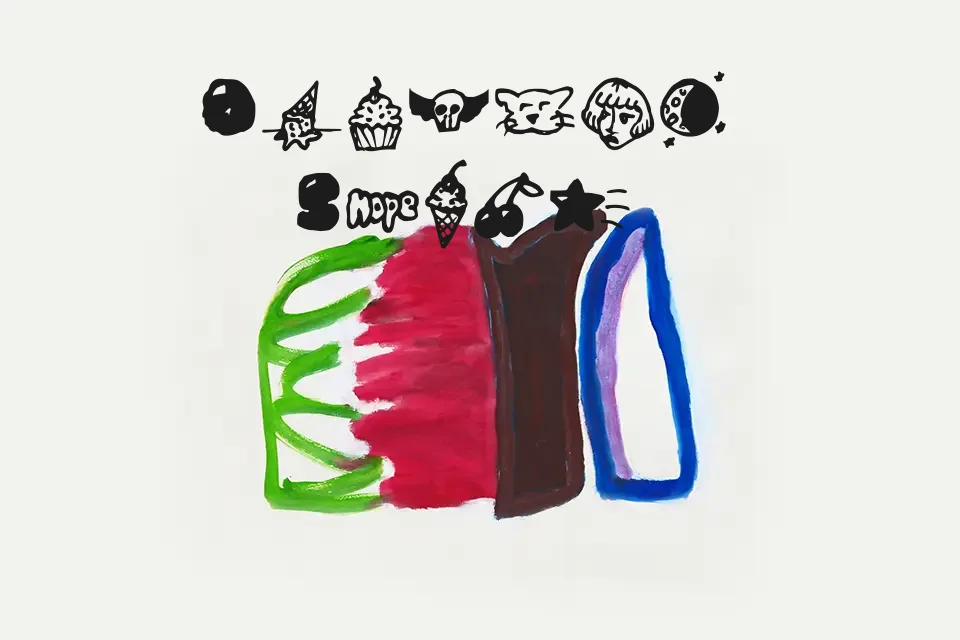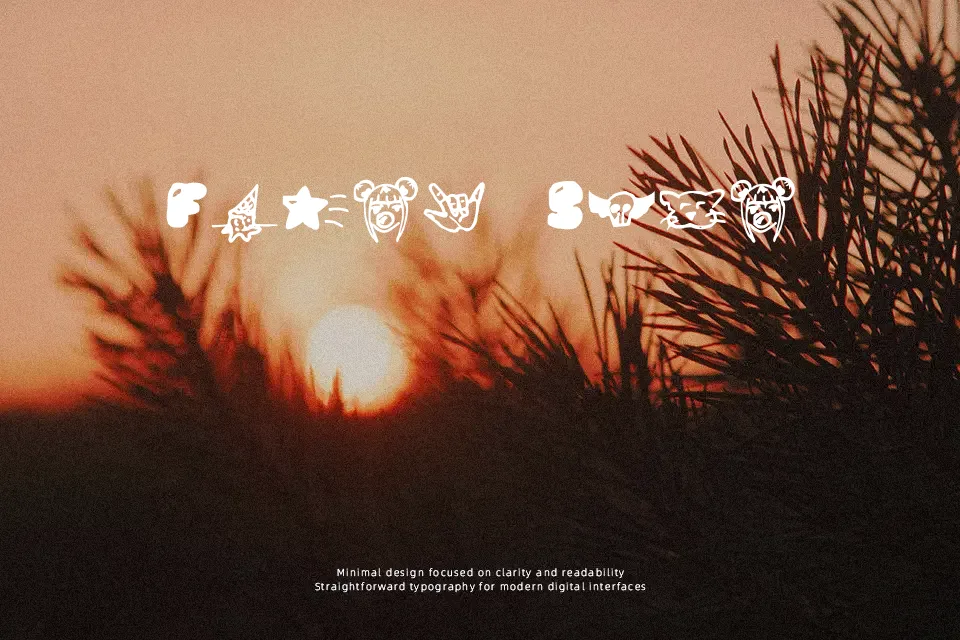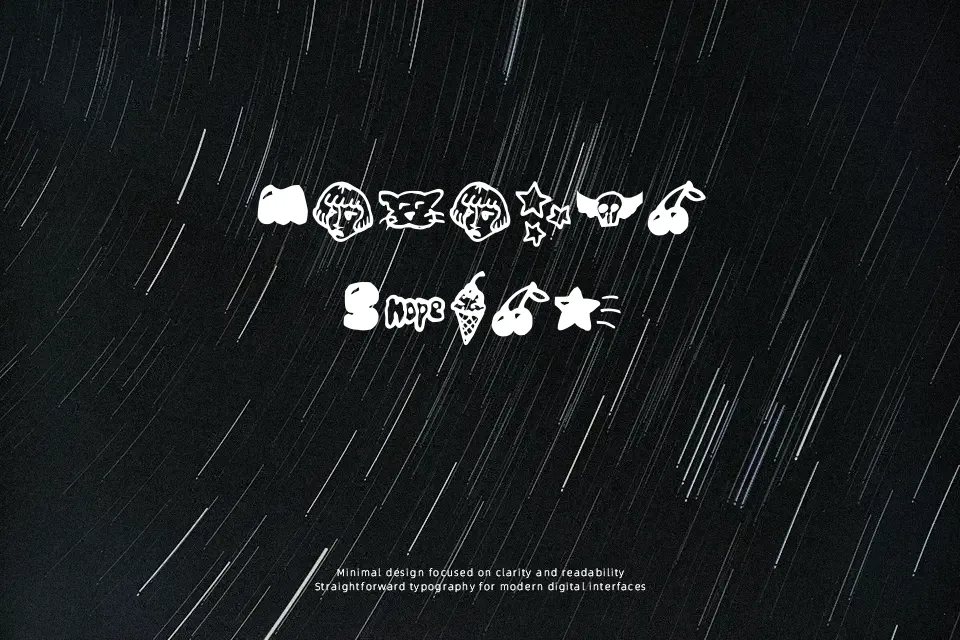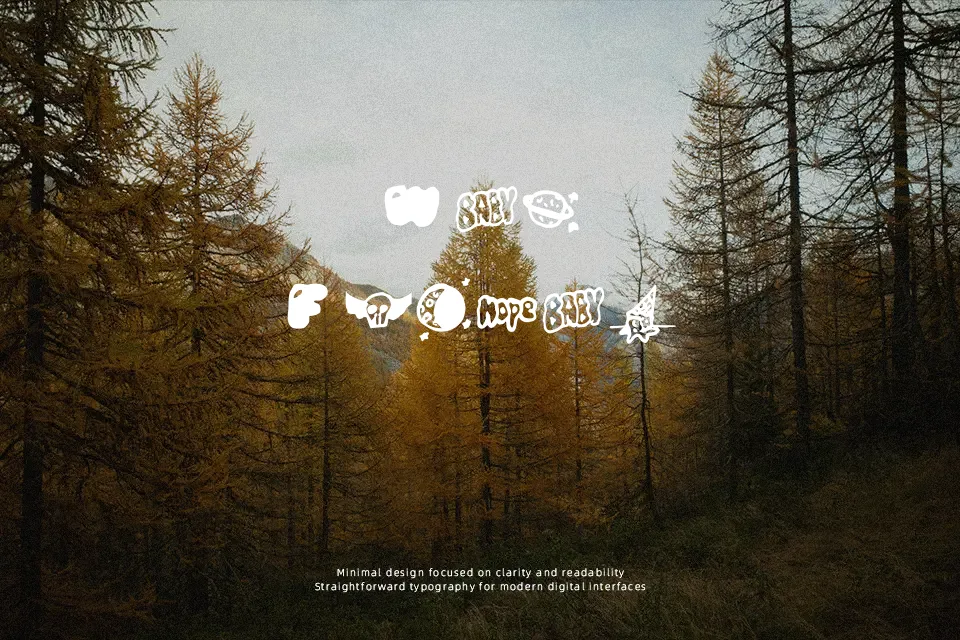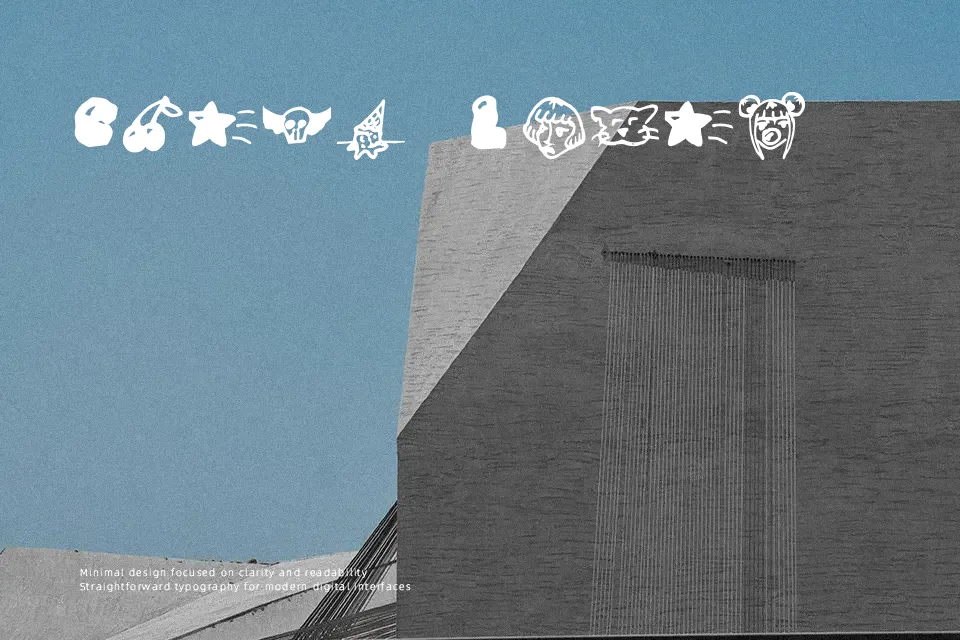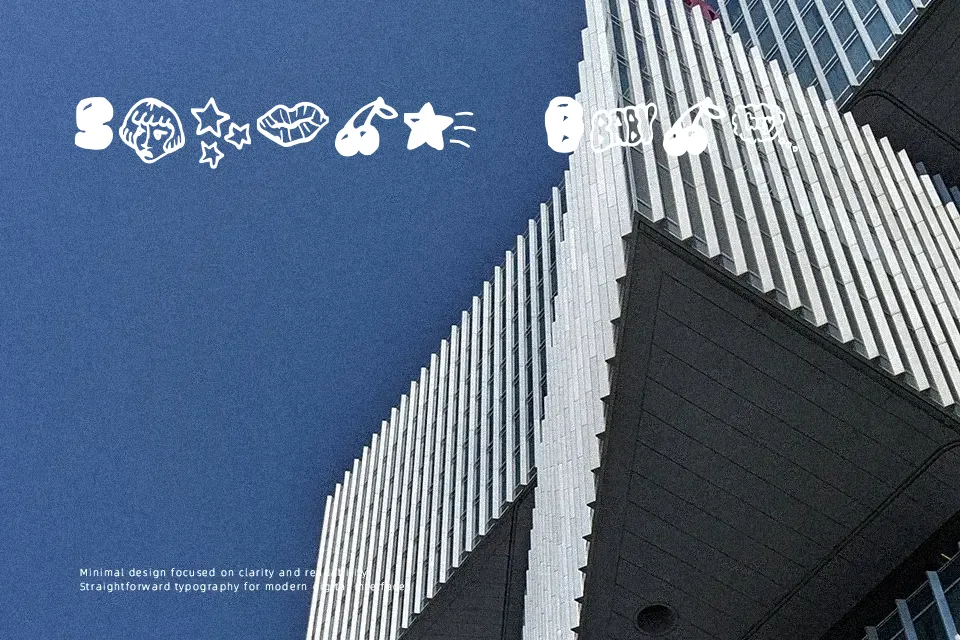
Bubblegum Baby Font
Bubblegum Baby is a rounded, chunky display face with soft outlines that feel like inflated lettering rather than rigid type, while the spacing stays fairly loose so words breathe instead of forming dense blocks. Uppercase characters carry the main alphabet, and lowercase positions are used as webdings-style icons, giving you letters and doodles from a single file. The overall impression is casual, cartoony, and slightly messy in a deliberate way, which suits kids’ crafts, classroom printables, birthday invitations, and playful branding more than anything corporate or serious. It tends to look best at larger sizes where the hand-drawn wobble reads as charm; in long paragraphs or tiny UI labels, that same wobble can quickly feel tiring or unpolished.
kids-themed posters and party invites
playful social media graphics and stickers
informal classroom or homeschool printables
lighthearted branding for toys, snacks, or crafts
body text or long reading passages
formal corporate or editorial layouts
interfaces that need strict legibility at small sizes
minimalist or highly technical branding
Perfect for branding, kids, and packaging, with a creative and cartoon style.